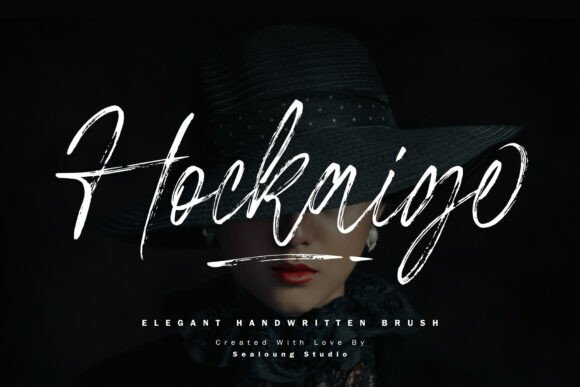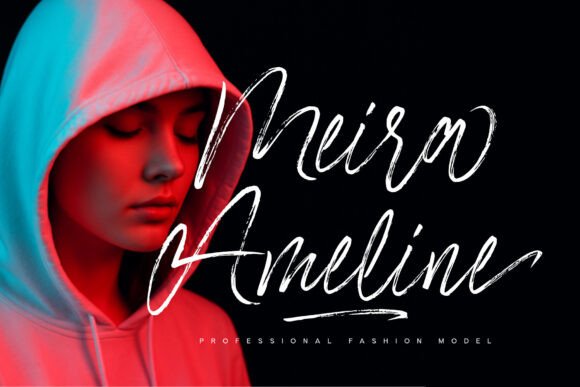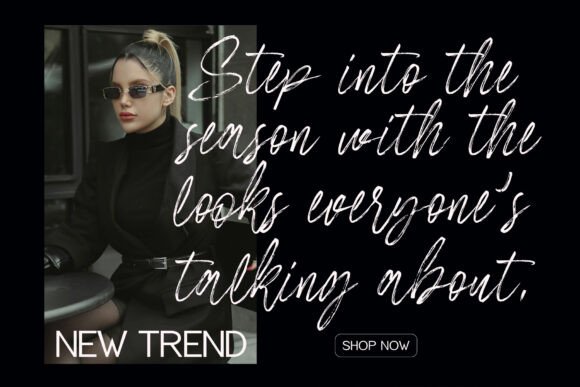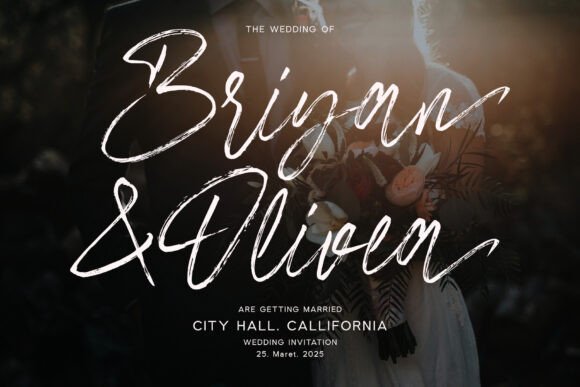
Hockaige Font: Elegant Handwritten Script for Signature & Logo Design
About the Hockaige Font
Step up your design game with Hockaige Font, a font that exudes confidence and style. Hockaige is an elegant handwritten brush font that combines the organic beauty of brushstrokes with a refined and sophisticated design. Its flowing, dynamic curves and delicate brush marks create a harmonious and artistic feel, making it the perfect choice for designs that require a personal, yet polished touch.
Designed with meticulous attention to detail, Hockaige adds authenticity and elegance to your projects. Whether you’re creating logos, invitations, branding materials, or creative designs, this font brings a timeless, handcrafted feel that stands out with grace and charm.
Hockaige Font Example